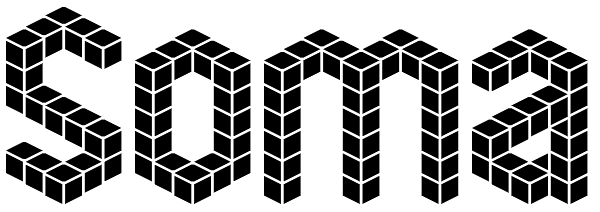
Soma
Soma is inspired by the Soma cube and the work of MC Escher. The font uses geometric patterns to create “impossible” glyphs. Some can be easily imagined; others bend the mind. Many alternate versions of glyphs have been provided for additional...